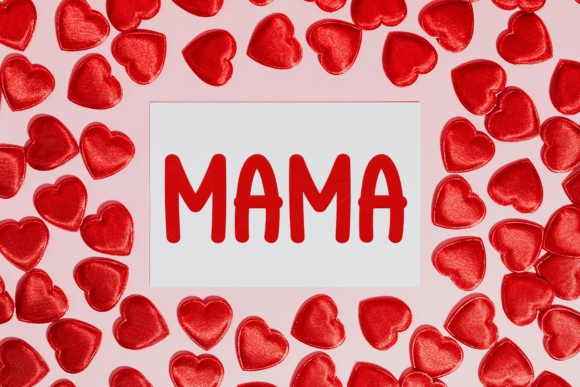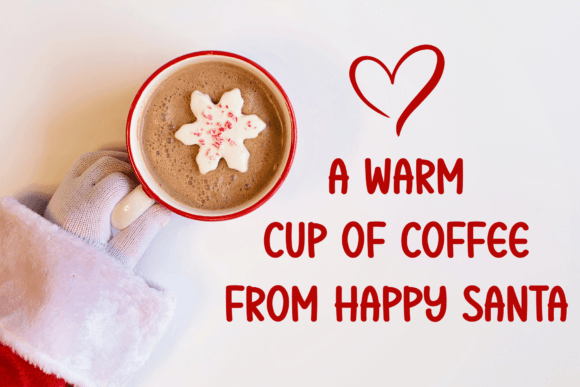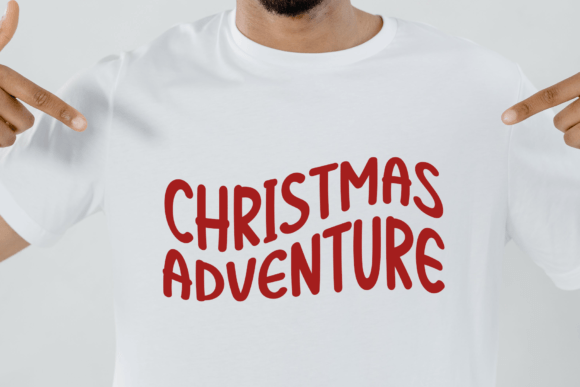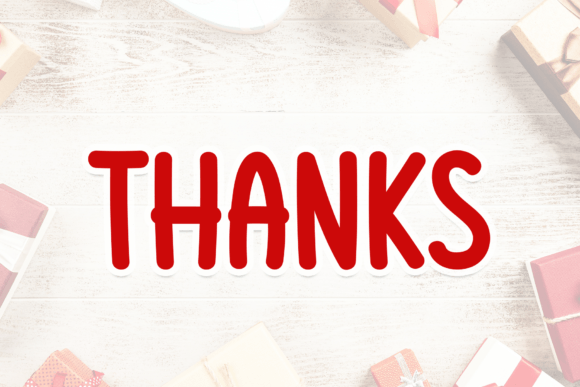
Christmas Vacation Font: A Timeless and Elegant Handwritten Font for Your Holiday Projects
Are you looking for a font that captures the essence of the holiday season? Look no further than the Christmas Vacation Font, a beautiful and elegant handwritten font that is perfect for adding a touch of sophistication to your favorite projects. With its incredibly distinct and timeless style, this font is sure to fall in love with and become a staple in your design collection.
What is Christmas Vacation Font?
Christmas Vacation Font is a neat and beautiful handwritten font that is described by an elegant touch. It is perfect for creating spectacular designs that are sure to impress. Whether you’re a designer, crafter, or DIY enthusiast, this font is a must-have for anyone looking to add a touch of holiday cheer to their projects.
Features of Christmas Vacation Font
- Elegant and Timeless Style: The Christmas Vacation Font has an incredibly distinct and timeless style that is perfect for creating holiday designs that will stand the test of time.
- Handwritten with Love: This font is carefully crafted with a handwritten touch, giving it a personal and unique feel that is sure to make your designs stand out.
- Perfect for Holiday Projects: Whether you’re creating Christmas cards, holiday decorations, or festive gifts, this font is perfect for adding a touch of holiday cheer to your projects.
Uses of Christmas Vacation Font
The Christmas Vacation Font is a versatile font that can be used for a wide range of projects, including:
- Holiday Cards and Invitations: Create beautiful and elegant holiday cards and invitations that are sure to impress your friends and family.
- Christmas Decorations: Use this font to create festive holiday decorations, such as garlands, banners, and signs.
- Festive Gifts: Add a touch of holiday cheer to your gifts with this beautiful font, perfect for creating personalized gift tags and wrapping paper.
- Social Media Graphics: Use this font to create festive social media graphics, such as holiday-themed Facebook posts and Instagram stories.
Tips for Using Christmas Vacation Font
Here are a few tips for using the Christmas Vacation Font in your projects:
- Pair with Other Fonts: Pair this font with other complementary fonts to create a unique and visually appealing design.
- Use for Headings and Titles: Use this font for headings and titles to add a touch of elegance and sophistication to your designs.
The Christmas Vacation Font is a beautiful and elegant handwritten font that is perfect for adding a touch of holiday cheer to your favorite projects. With its incredibly distinct and timeless style, this font is sure to become a staple in your design collection. Whether you’re a designer, crafter, or DIY enthusiast, this font is a must-have for anyone looking to create spectacular holiday designs.